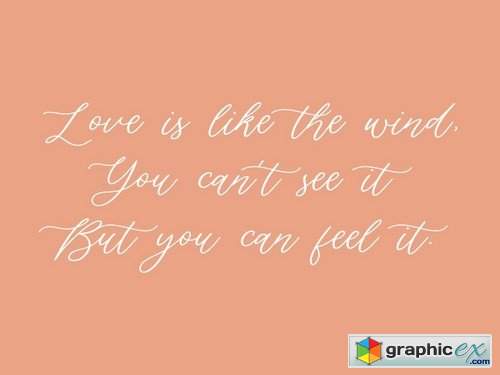
Silverweed - Elegant Script Font
Silverweed is perfect for product packaging, branding project, megazine, social media, wedding, or just used to express words above the background.